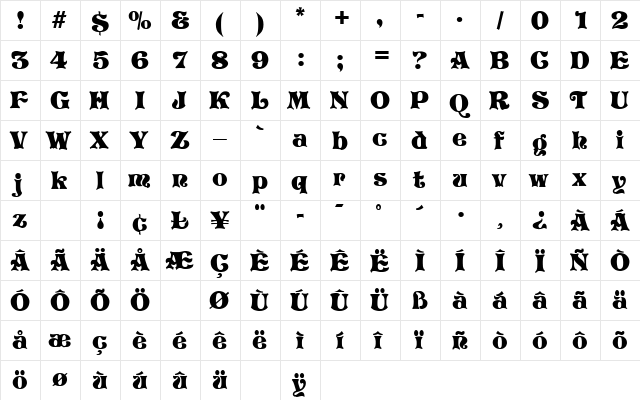
Pretoria DB Regular
Design Context for Pretoria DB Typeface
Pretoria DB is a composed and adaptable typeface that performs quietly and consistently across a wide range of design contexts.